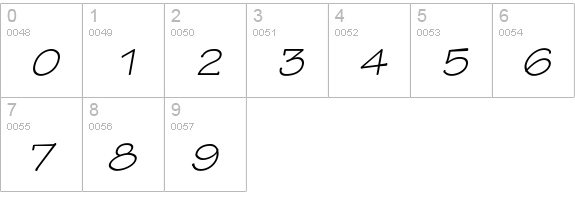
Tekton Pro Extended Oblique Font Details
Tekton Pro Extended Oblique is a distinctive, extended-width, italic variant in the Tekton typeface family \xE2\x80\x94 well suited to design and typography projects.
Introducing Tekton Pro Extended Oblique, a captivating and dynamic font that effortlessly combines elegance with a touch of edginess. This font is designed to make a bold statement, commanding attention with its sleek and elongated features. The slanted and italicized nature of the letters adds a sense of fluidity and movement, making it perfect for designs that require a modern and energetic vibe. Tekton Pro Extended Oblique is a versatile font that can be used for a wide range of projects, from eye-catching headlines to striking logos and branding materials. Its distinctive and unique letterforms lend themselves well to both print and digital mediums, ensuring that your message will always stand out from the crowd. One of the most remarkable aspects of Tekton Pro Extended Oblique is that it is available for free download at FontsMarket.com. This means that designers and creatives can easily access and utilize this stunning font without any financial burden. With just a few clicks, you can unleash the power of Tekton Pro Extended Oblique and elevate your designs to new heights. Don't miss out on this incredible opportunity to enhance your creative arsenal with a font that is not only visually captivating but also freely available. Download Tekton Pro Extended Oblique today and let your imagination run wild.